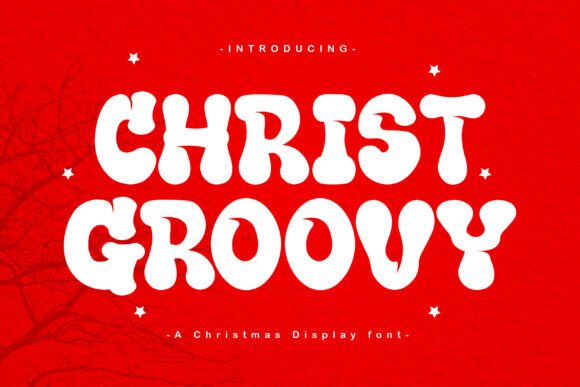
Christ Groovy Font: The Ultimate Festive Typeface for Your Holiday Designs
Are you looking for a font that embodies the spirit of Christmas parties and adds a touch of groovy style to your designs? Look no further than Christ Groovy Font! This unique typeface is inspired by the rhythmic energy and stylish appeal of Christmas celebrations, making it the perfect choice for creating eye-catching party invitations, playful thank you cards, and charming quotes.
The Essence of Christ Groovy Font
Christ Groovy Font is more than just a typeface – it’s an experience. Its essence captures the vibrant energy and stylish appeal of Christmas parties, transporting you to a world of festive fun and celebration. With its unique blend of retro charm and modern vitality, Christ Groovy Font is the perfect choice for anyone looking to add a touch of holiday magic to their designs.
Whether you’re designing party invitations, thank you cards, or social media posts, Christ Groovy Font is sure to make your creations stand out. Its playful and charming quality brings a sense of joy and festivity to any design, making it the perfect choice for the holiday season.
Attractive Party Invitations with Christ Groovy Font
Party invitations are the perfect way to set the tone for your holiday celebration, and Christ Groovy Font is the perfect choice for creating eye-catching and festive invites. With its unique blend of retro charm and modern vitality, Christ Groovy Font adds a touch of groovy style to any party invitation, making it sure to stand out from the crowd.
Imagine creating party invitations that transport your guests to a world of festive fun and celebration. With Christ Groovy Font, you can do just that. Its playful and charming quality brings a sense of joy and excitement to any party invitation, making it the perfect choice for holiday parties, gatherings, and events.
Playful Thank You Cards with Christ Groovy Font
Thank you cards are a thoughtful way to show your appreciation for gifts, kindness, and hospitality during the holiday season. And with Christ Groovy Font, you can add a touch of playful charm to your thank you cards that will make them truly special.
Christ Groovy Font brings a sense of joy and festivity to any thank you card, making it the perfect choice for expressing your gratitude during the holiday season. Its unique blend of retro charm and modern vitality adds a touch of groovy style to any design, making your thank you cards truly unforgettable.
Bringing Sweet Quotes to Life with Christ Groovy Font
Sweet quotes are a great way to add a touch of personality and charm to your holiday designs. And with Christ Groovy Font, you can bring your quotes to life in a way that’s both playful and stylish.
Christ Groovy Font has a charming quality that makes it perfect for creating beautiful and inspiring quotes. Its unique blend of retro charm and modern vitality adds a touch of groovy style to any quote, making it sure to stand out from the crowd.
Vintage Logos with a Modern Twist
Vintage logos are a great way to add a touch of nostalgia and charm to your holiday designs. And with Christ Groovy Font, you can give your vintage logos a modern twist that’s sure to make them stand out.
Christ Groovy Font blends a touch of the golden era with the vitality of the present, making it the perfect choice for creating vintage logos with a modern twist. Its unique blend of retro charm and modern vitality adds a touch of groovy style to any design, making your vintage logos truly unforgettable.
The Harmonious Retro Feel of Christ Groovy Font
Christ Groovy Font has a harmonious retro feel that’s perfect for the holiday season. Its unique blend of retro charm and modern vitality creates a sense of nostalgia and festivity that’s sure to transport you to a world of holiday magic.
With Christ Groovy Font, you can weave a harmonious retro feel into each of your designs, making them truly special and unforgettable. Whether you’re designing party invitations, thank you cards, or social media posts, Christ Groovy Font is the perfect choice for adding a touch of groovy style to your holiday creations.
In conclusion, Christ Groovy Font is the ultimate festive typeface for your holiday designs. Its unique blend of retro charm and modern vitality makes it perfect for creating eye-catching party invitations, playful thank you cards, and charming quotes.